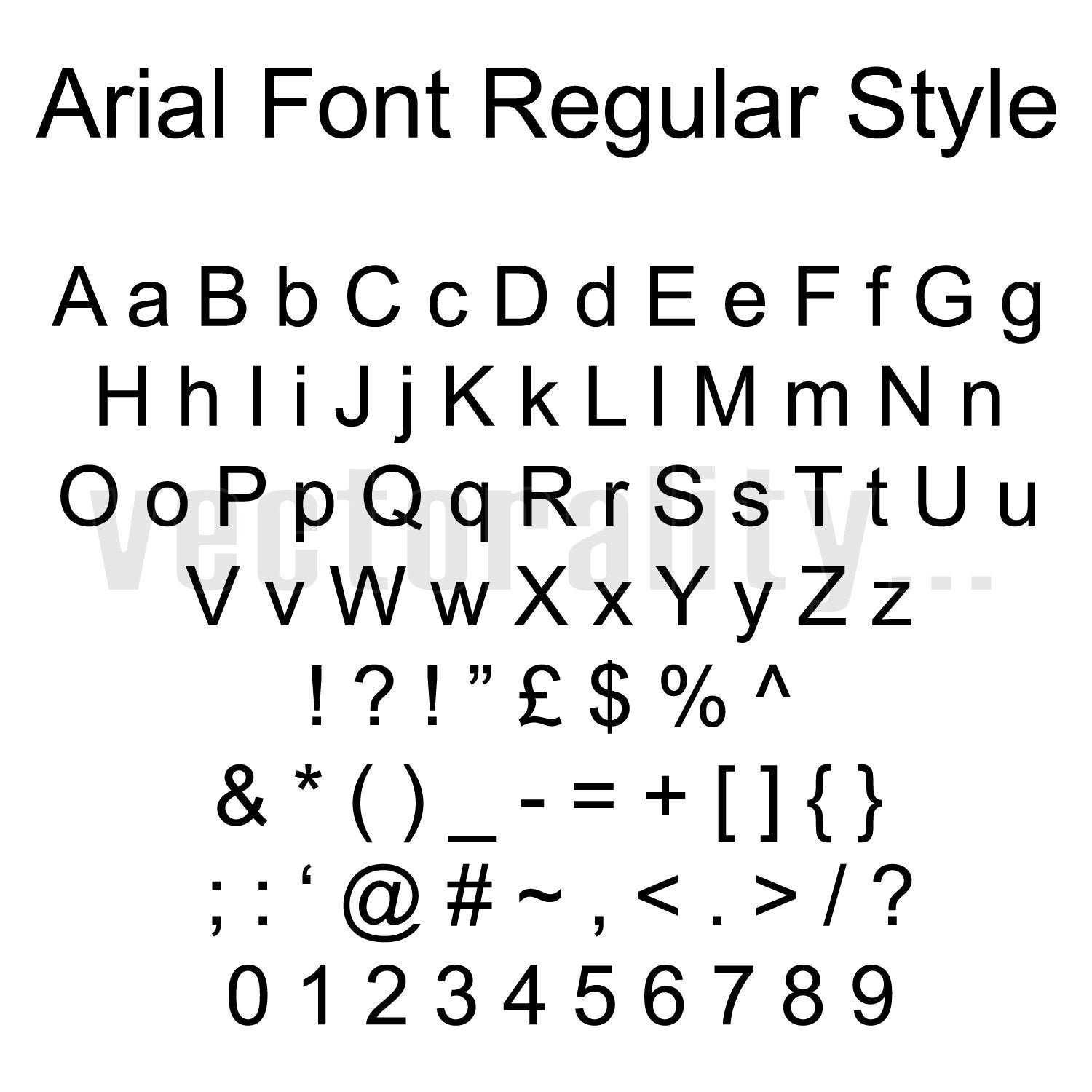
Arial Font Regular
Arial Font Regular - More recently, arial rounded has also been widely bundled. It has been downloaded 7406 times. 17 users have given the font a rating of 4.35 out of 5. Web arial is an extremely versatile family of typefaces which can be used with equal success for text setting in reports, presentations, magazines etc, and for display use in newspapers, advertising and. Web the most widely used and bundled arial fonts are arial regular, italic, bold, and bold italic; A contemporary sans serif design, arial contains more. Arial was designed for monotype in 1982 by robin nicholas and patricia saunders. Detailed information on the arial regular font: The same styles of arial narrow; You can find more information about arial regular and it's character map in the.
Web download the arial regular free font. You can find more information about arial regular and it's character map in the. It has been downloaded 7406 times. Detailed information on the arial regular font: The same styles of arial narrow; 17 users have given the font a rating of 4.35 out of 5. Web arial regular is a regular truetype font. Web arial is an extremely versatile family of typefaces which can be used with equal success for text setting in reports, presentations, magazines etc, and for display use in newspapers, advertising and. More recently, arial rounded has also been widely bundled. A contemporary sans serif design, arial contains more.
Detailed information on the arial regular font: It has been downloaded 7406 times. 17 users have given the font a rating of 4.35 out of 5. A contemporary sans serif design, arial contains more. Arial was designed for monotype in 1982 by robin nicholas and patricia saunders. Web arial regular is a regular truetype font. Web the most widely used and bundled arial fonts are arial regular, italic, bold, and bold italic; More recently, arial rounded has also been widely bundled. You can find more information about arial regular and it's character map in the. Web download the arial regular free font.
The same styles of arial narrow; You can find more information about arial regular and it's character map in the. Web download the arial regular free font. 17 users have given the font a rating of 4.35 out of 5. A contemporary sans serif design, arial contains more.
Web the most widely used and bundled arial fonts are arial regular, italic, bold, and bold italic; Web arial regular is a regular truetype font. Arial was designed for monotype in 1982 by robin nicholas and patricia saunders. It has been downloaded 7406 times. More recently, arial rounded has also been widely bundled.
17 users have given the font a rating of 4.35 out of 5. Arial was designed for monotype in 1982 by robin nicholas and patricia saunders. A contemporary sans serif design, arial contains more. More recently, arial rounded has also been widely bundled. You can find more information about arial regular and it's character map in the.
Web arial is an extremely versatile family of typefaces which can be used with equal success for text setting in reports, presentations, magazines etc, and for display use in newspapers, advertising and. You can find more information about arial regular and it's character map in the. It has been downloaded 7406 times. Web arial regular is a regular truetype font..
You can find more information about arial regular and it's character map in the. 17 users have given the font a rating of 4.35 out of 5. It has been downloaded 7406 times. Detailed information on the arial regular font: The same styles of arial narrow;
A contemporary sans serif design, arial contains more. Detailed information on the arial regular font: Web the most widely used and bundled arial fonts are arial regular, italic, bold, and bold italic; You can find more information about arial regular and it's character map in the. The same styles of arial narrow;
Download free Arial Regular font
Arial was designed for monotype in 1982 by robin nicholas and patricia saunders. A contemporary sans serif design, arial contains more. Web the most widely used and bundled arial fonts are arial regular, italic, bold, and bold italic; Web download the arial regular free font. You can find more information about arial regular and it's character map in the.
Arial Regular Download for free at Free Fonts Free Fonts
17 users have given the font a rating of 4.35 out of 5. The same styles of arial narrow; You can find more information about arial regular and it's character map in the. A contemporary sans serif design, arial contains more. More recently, arial rounded has also been widely bundled.
Arial Regular truetype font
Arial was designed for monotype in 1982 by robin nicholas and patricia saunders. It has been downloaded 7406 times. The same styles of arial narrow; 17 users have given the font a rating of 4.35 out of 5. Detailed information on the arial regular font:
Arial Font Regular Style Alphabet Numbers Letters Vector Art Etsy
It has been downloaded 7406 times. Arial was designed for monotype in 1982 by robin nicholas and patricia saunders. Web download the arial regular free font. A contemporary sans serif design, arial contains more. The same styles of arial narrow;
It Has Been Downloaded 7406 Times.
Web arial is an extremely versatile family of typefaces which can be used with equal success for text setting in reports, presentations, magazines etc, and for display use in newspapers, advertising and. 17 users have given the font a rating of 4.35 out of 5. Web download the arial regular free font. You can find more information about arial regular and it's character map in the.
The same styles of arial narrow;